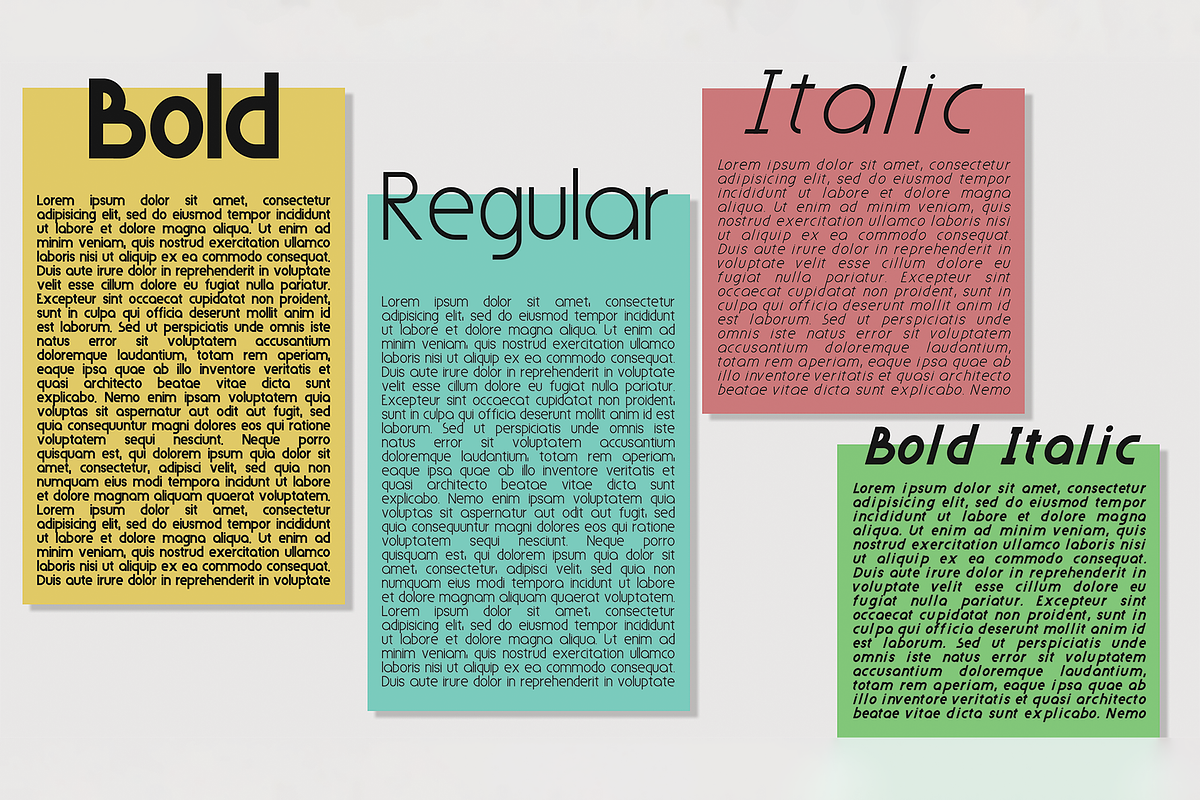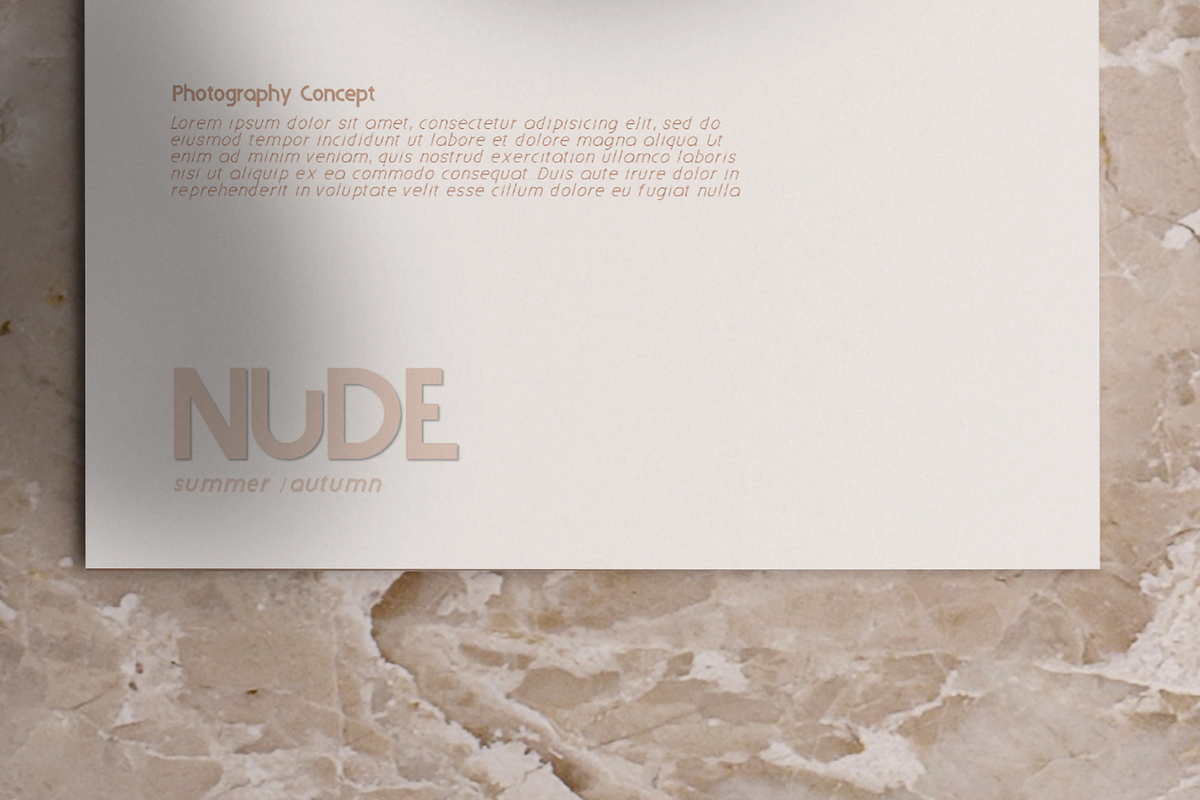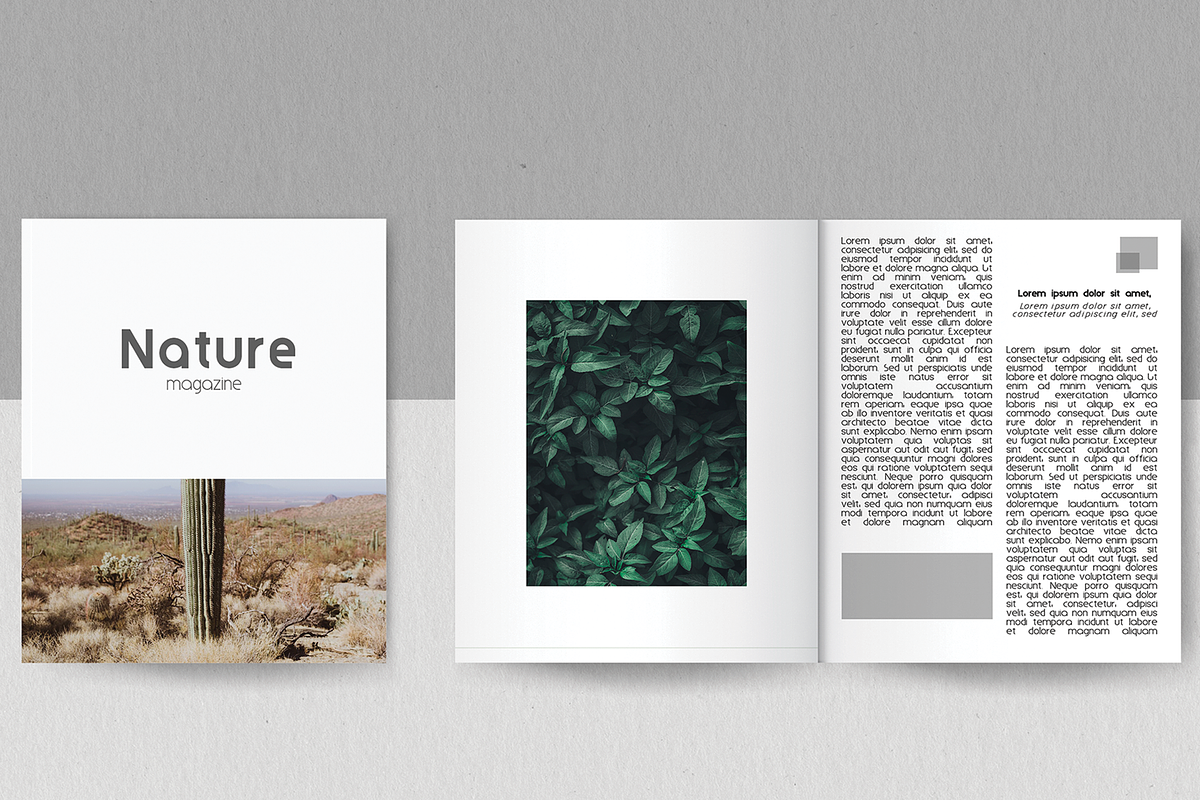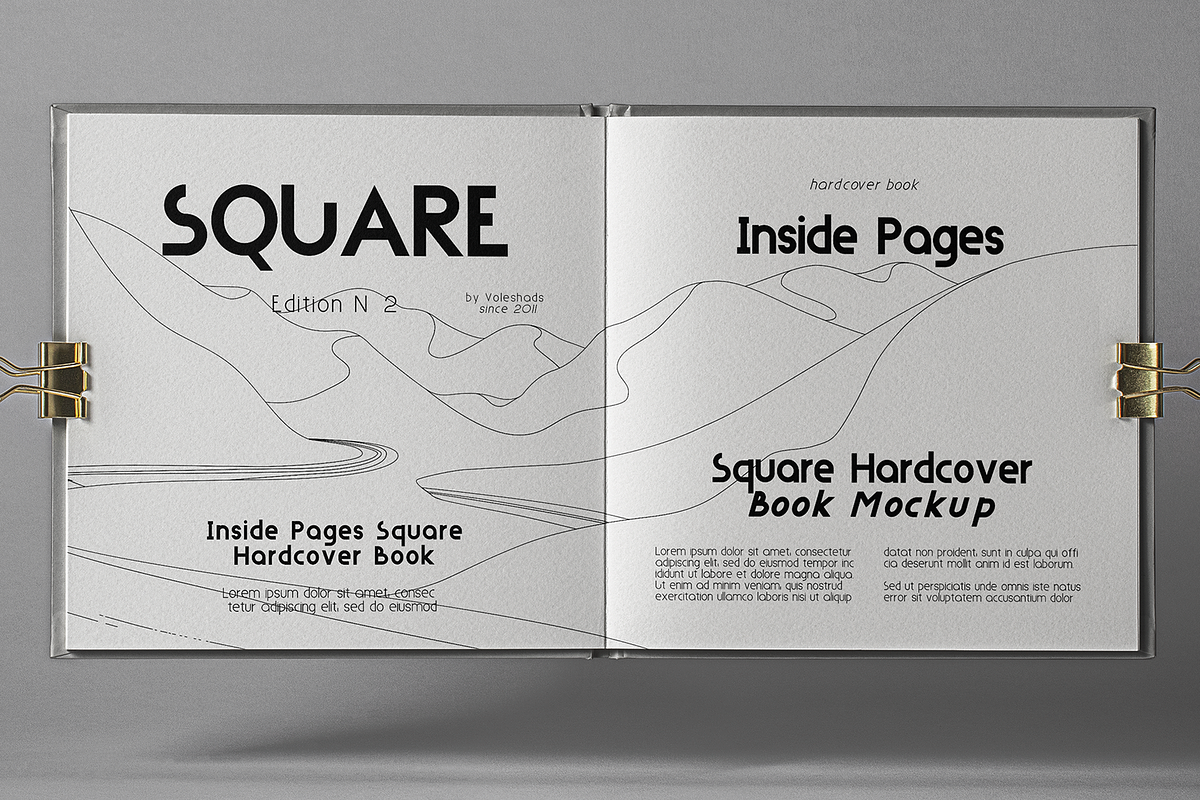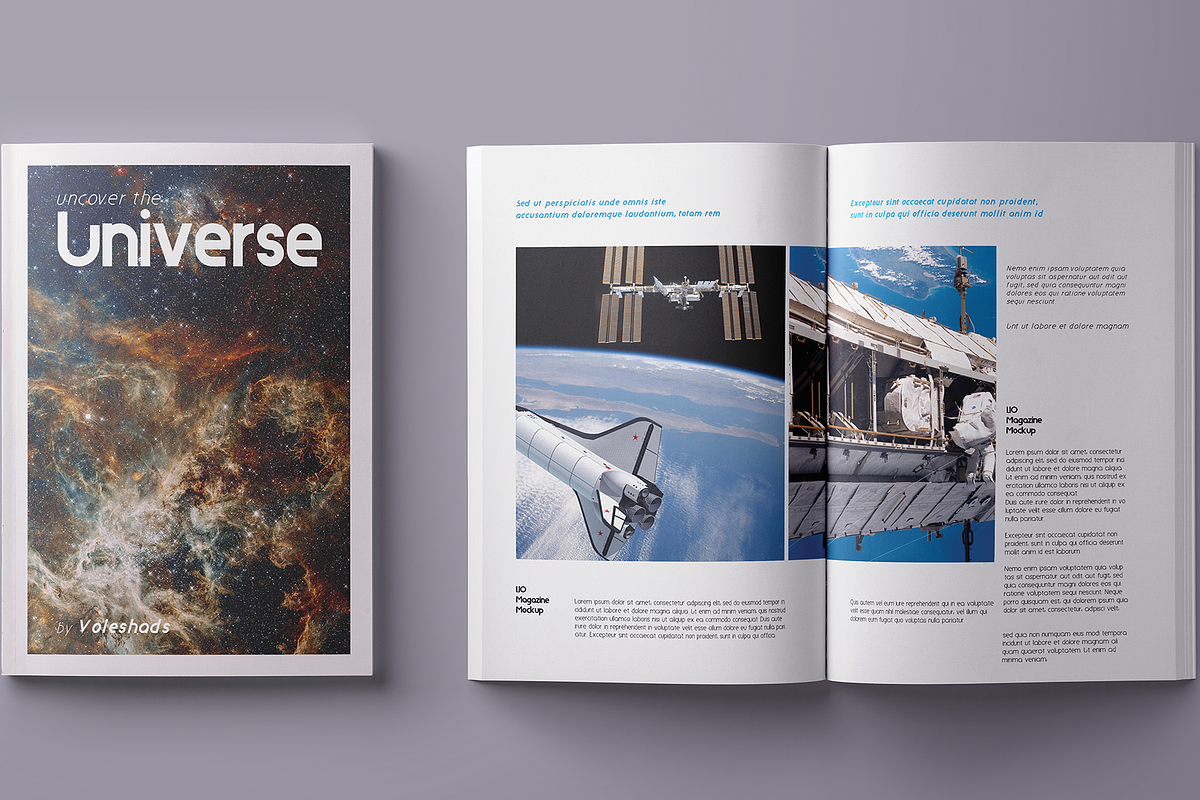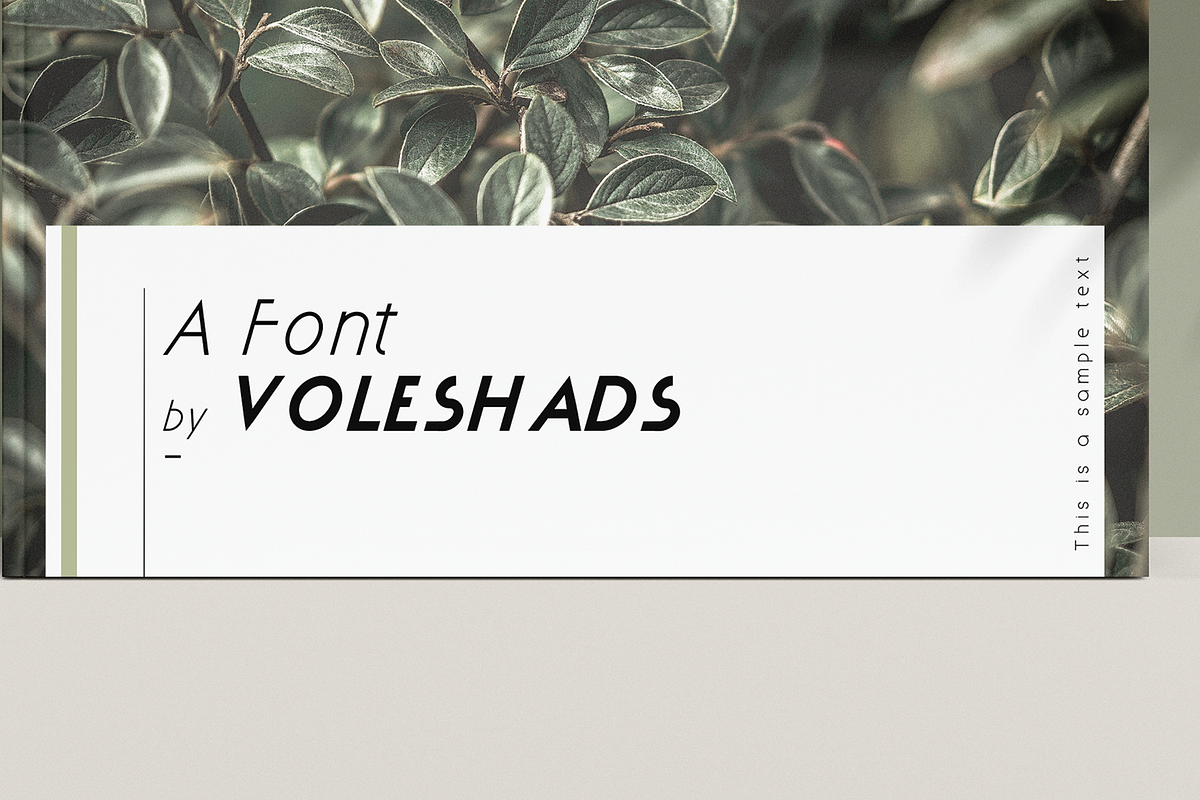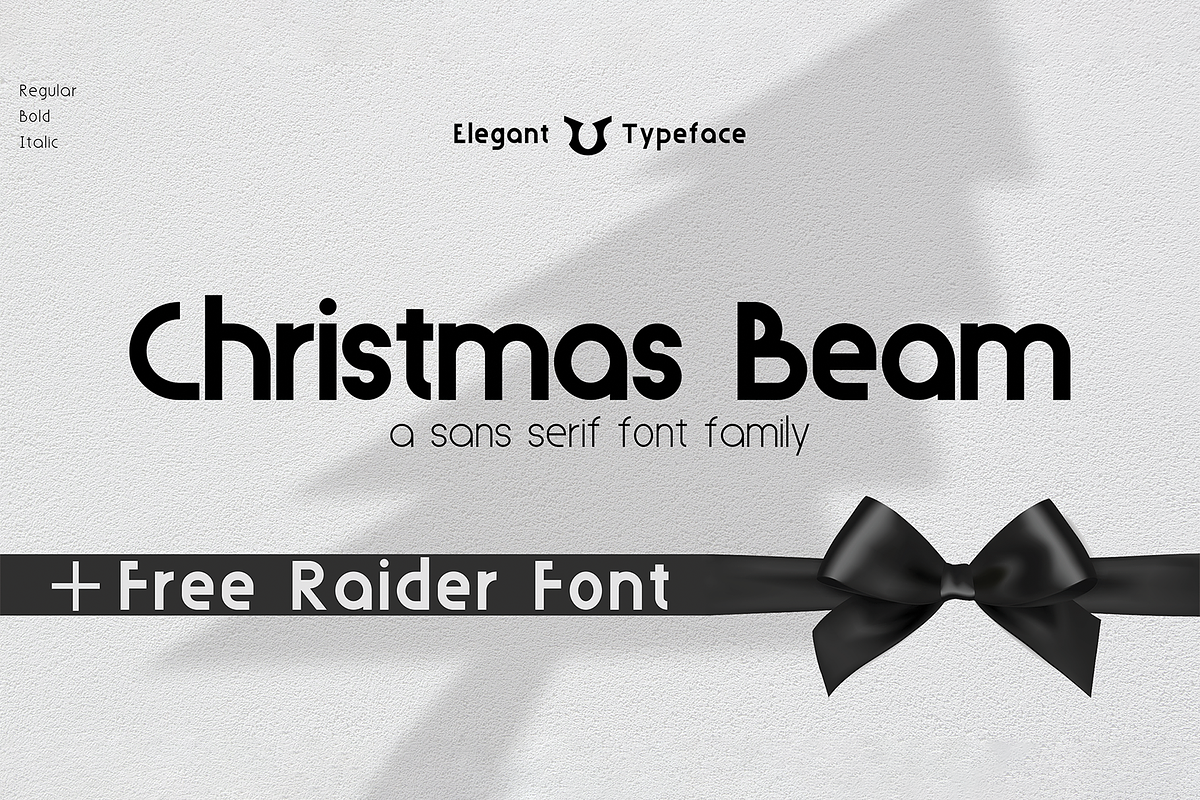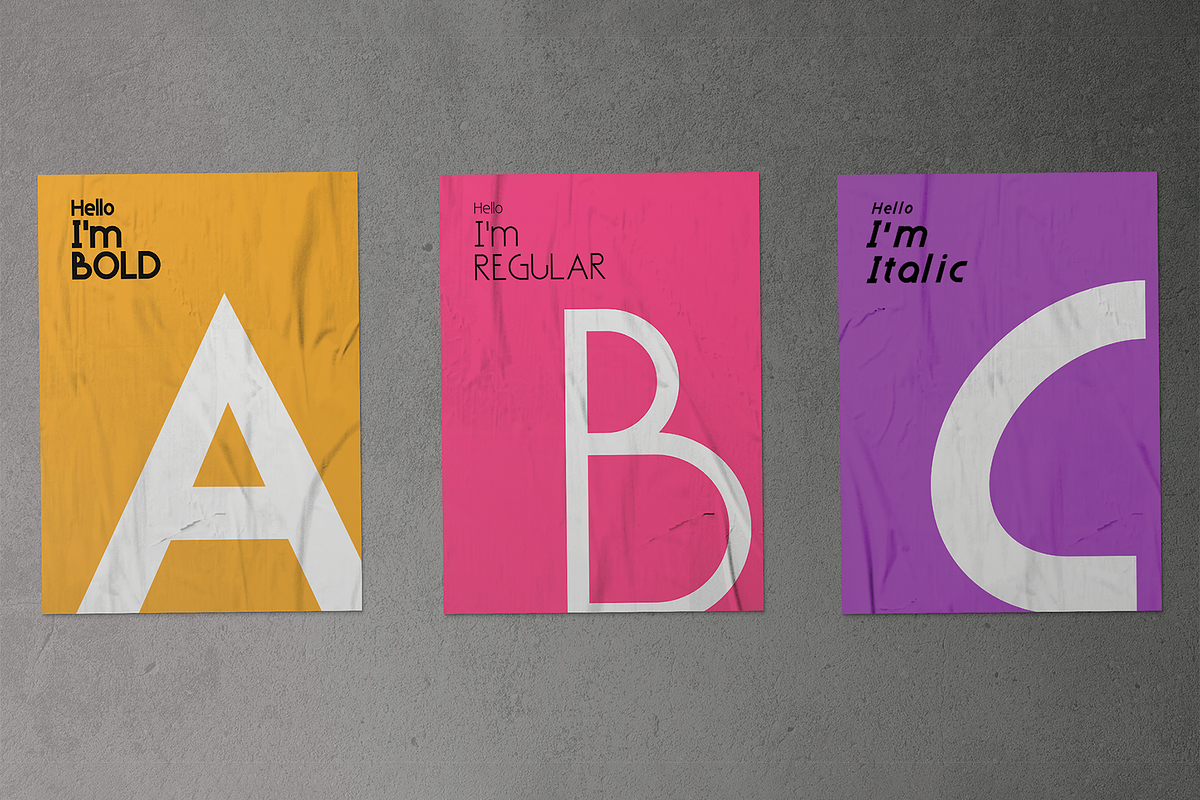
Christmas Beam
Christmas Beam is a highly elegant sans serif font created from scratch. The Christmas beam font gives an elegant and beautiful, eye catching look to your gorgeous logos, posters, wedding invitations, blog posts, social media, and more!
The Christmas beam font comes in the regular, bold, italic and bold italic formats.
The Christmas Beam font includes full set of uppercase and lowercase letters, numerals and a set of punctuation.